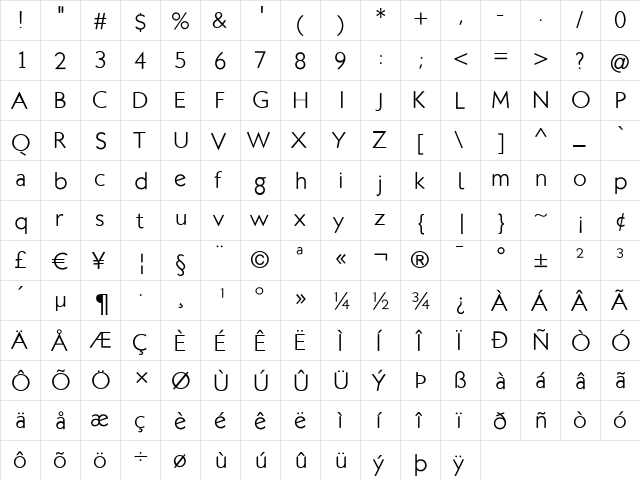
Klill Regular
Design Context for Klill Typeface
Klill offers clean, dependable letterforms without strong stylistic allegiance, making it a practical choice for designers who need flexibility.